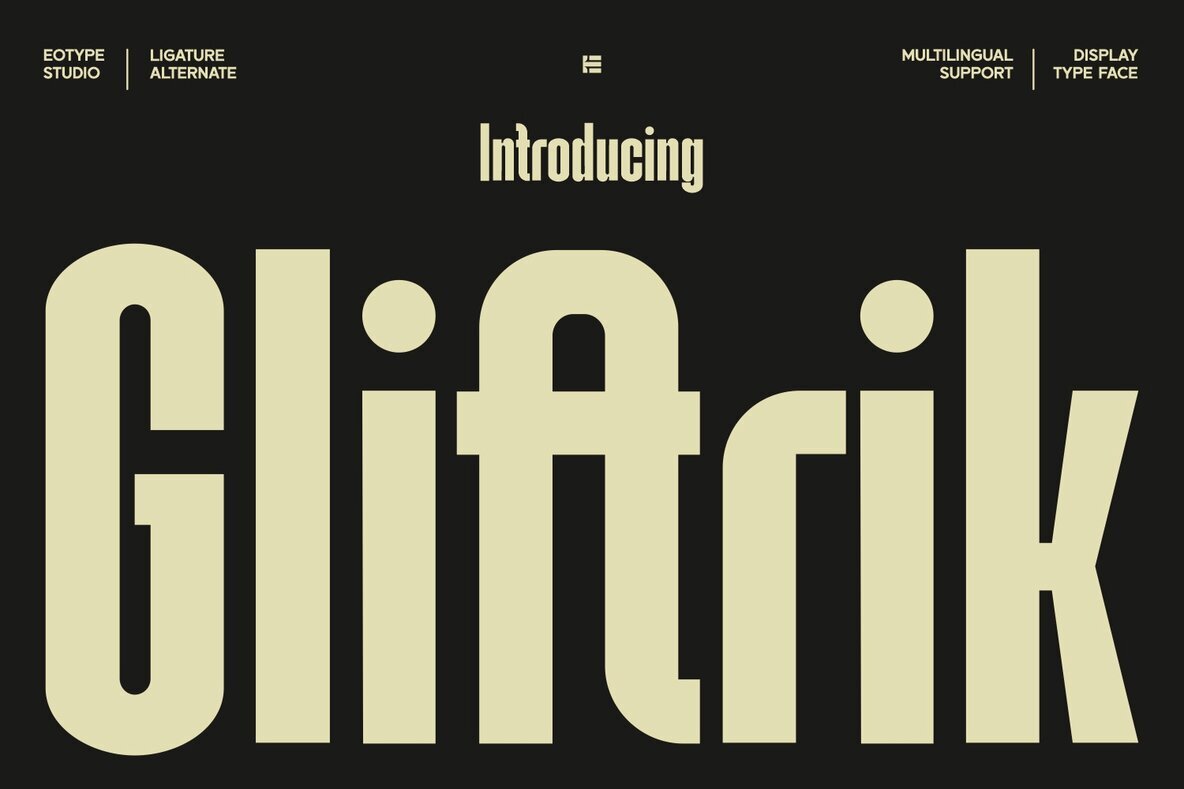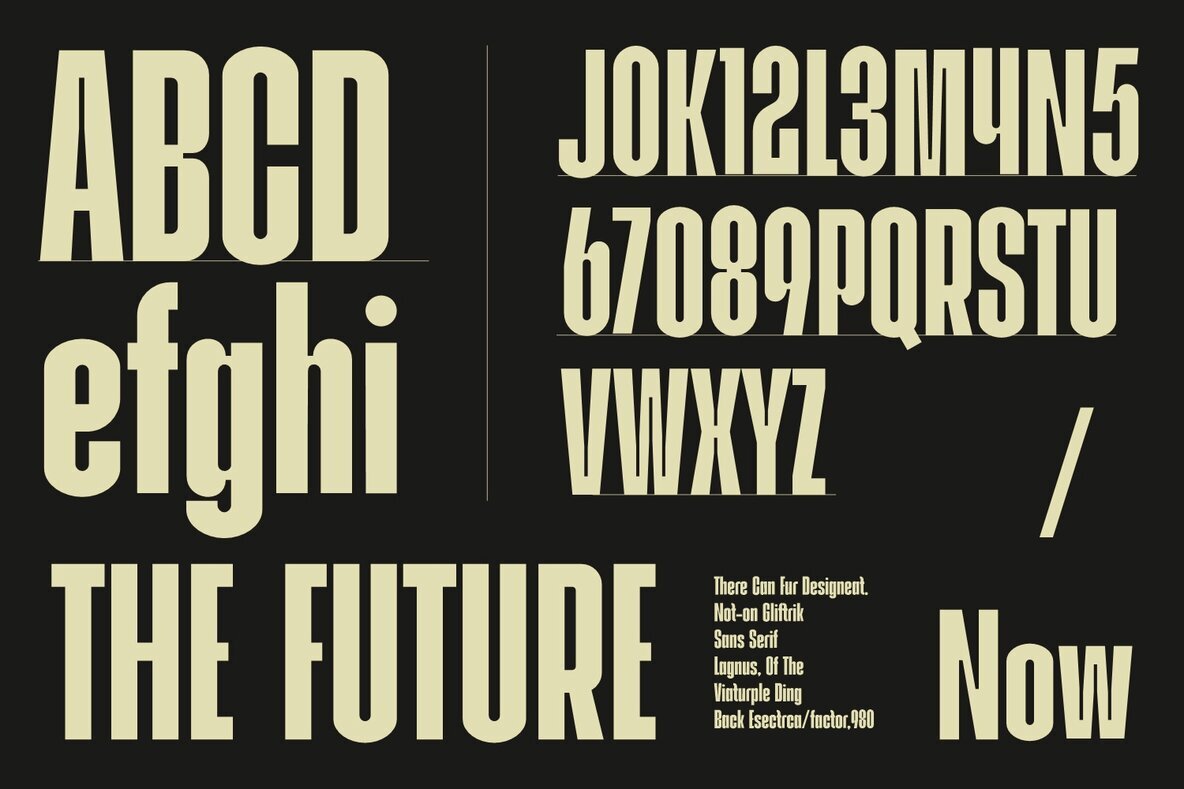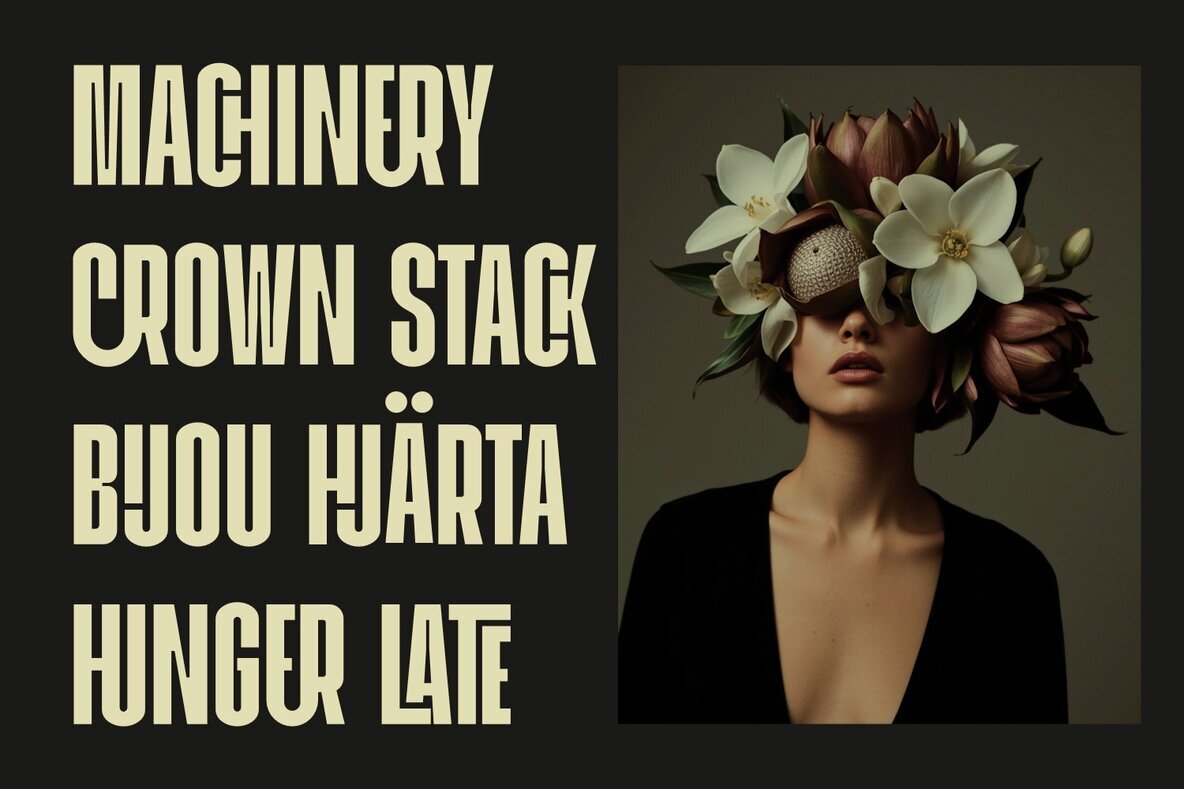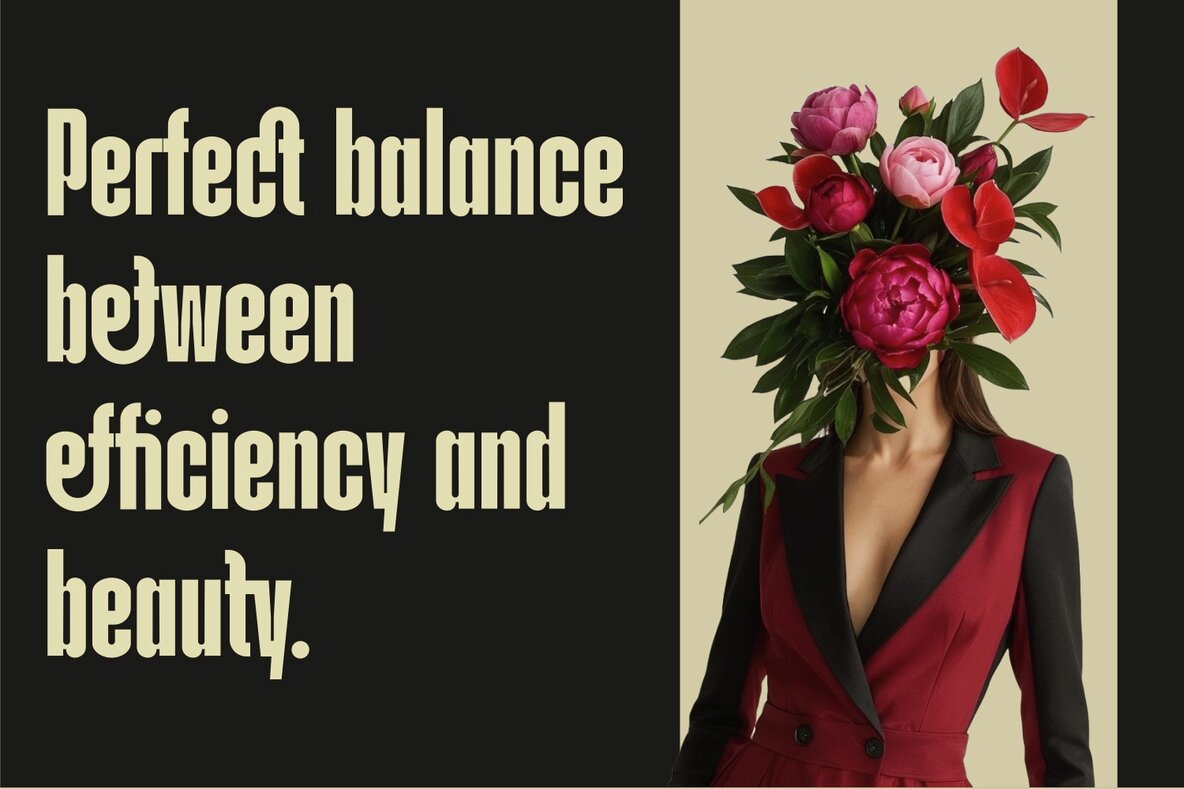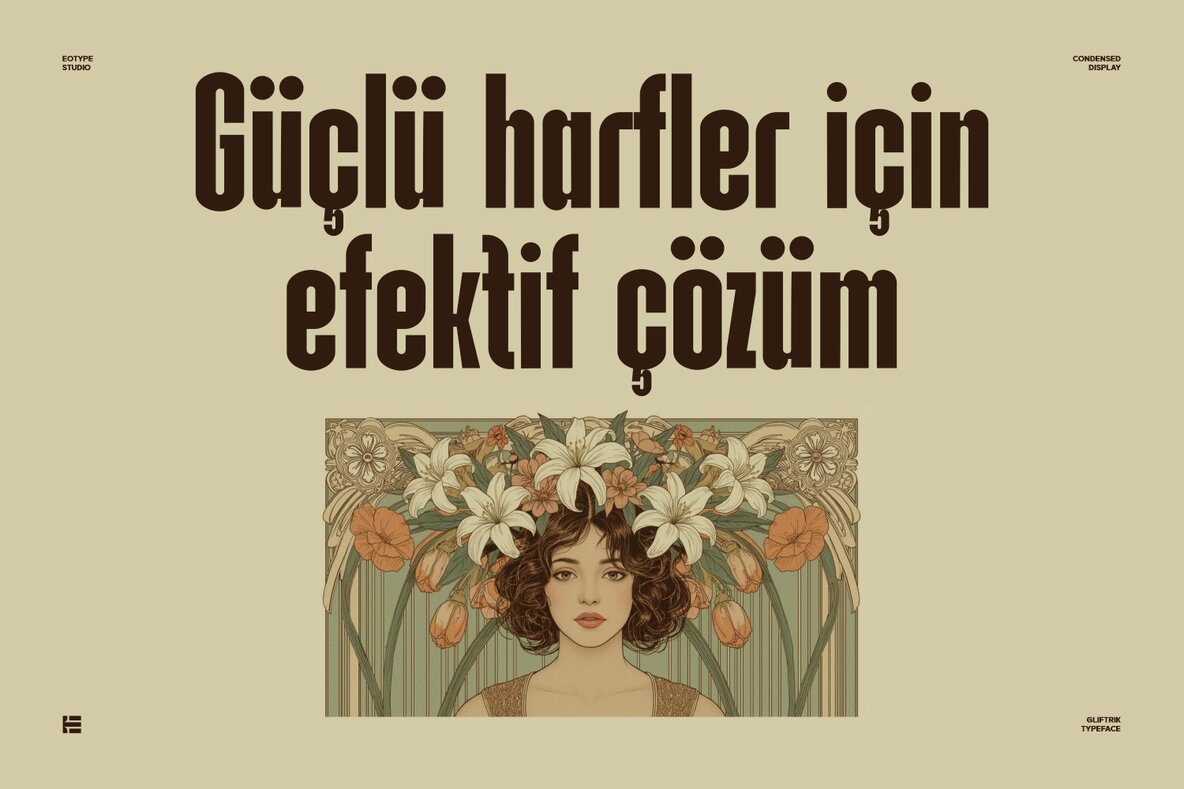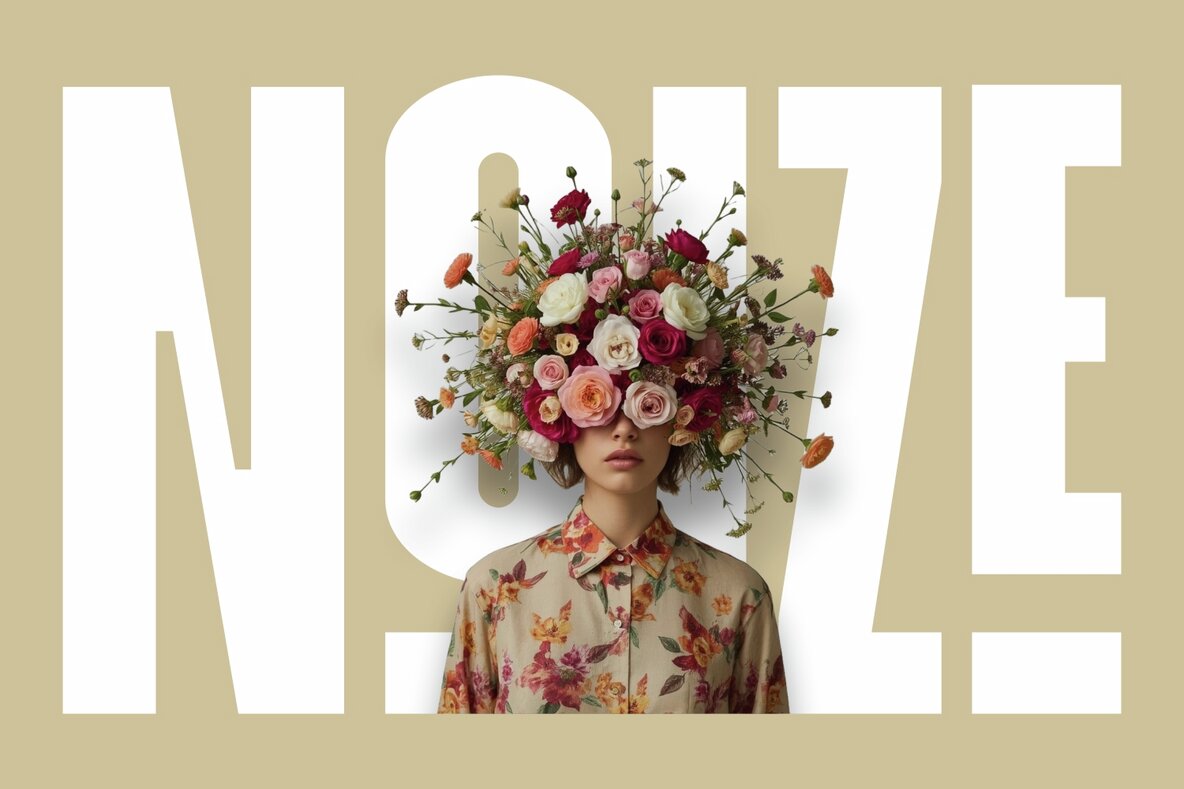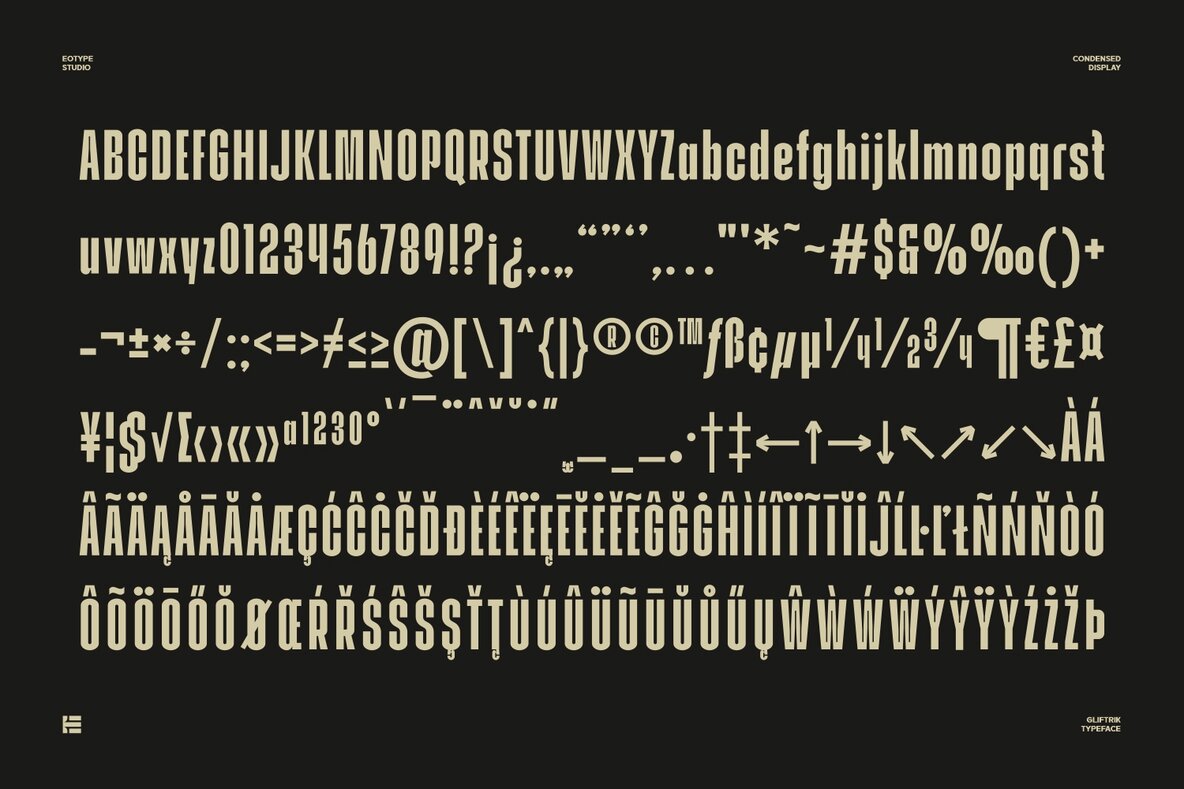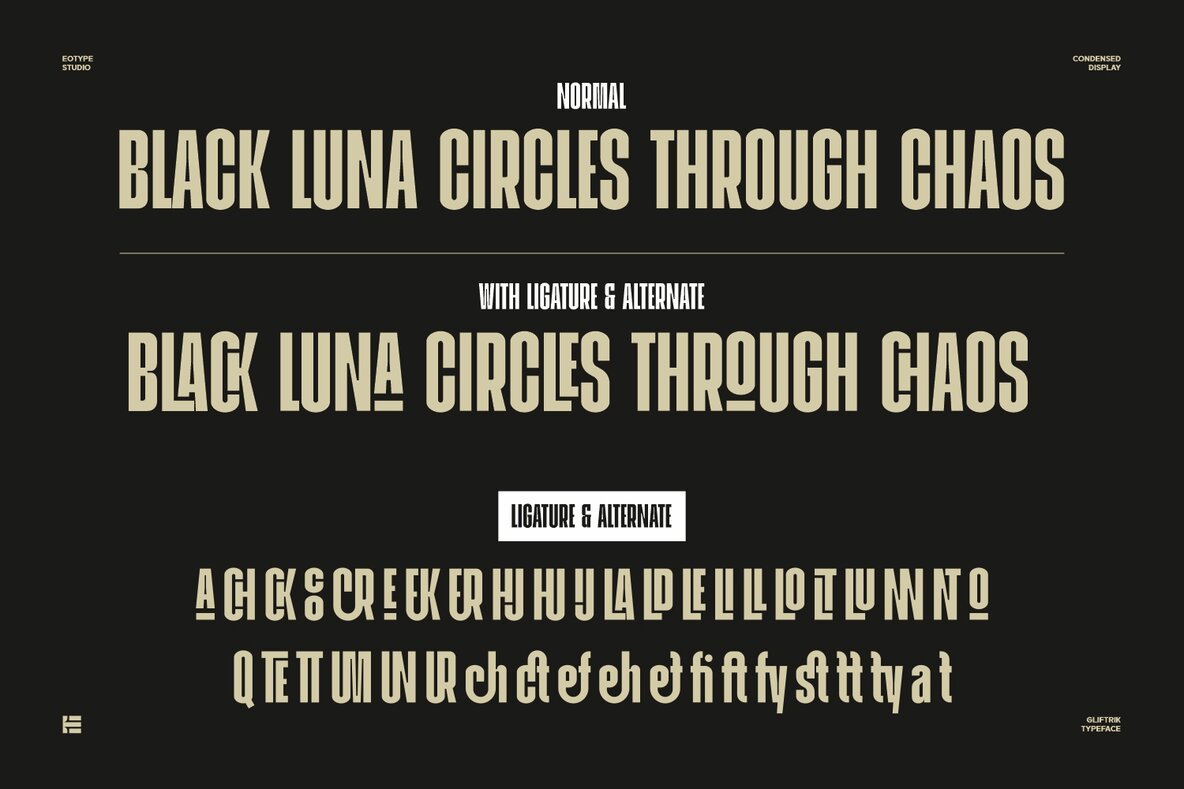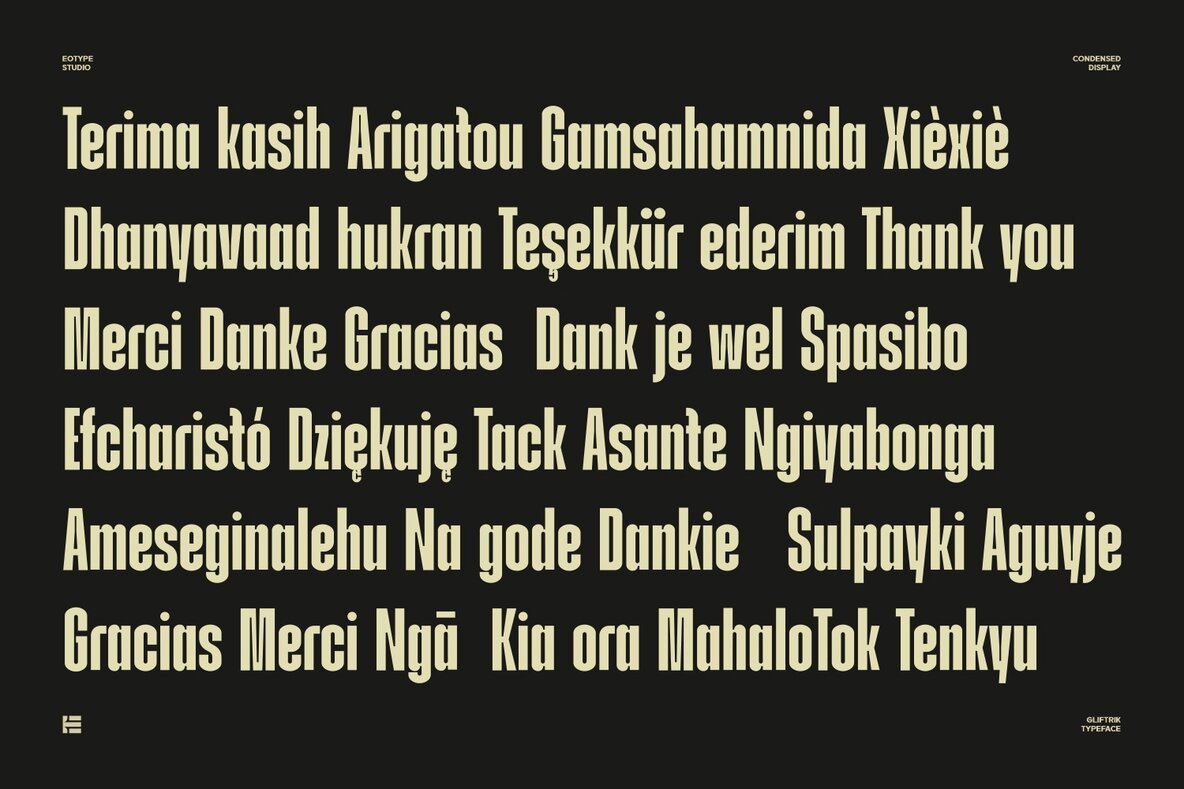
Gliftrik Font
Gliftrik
Experience the dynamic charm of Gliftrik, a bold condensed sans serif that defies convention. With its sharp-cut ink traps and surprising ligatures, this typeface connects glyphs in ways you haven't imagined, like CR, IJ, HJ, UN, and TT. It adjusts its tone seamlessly, being loud and expressive in one moment, then clean and precise when necessary. Perfect for making an editorial statement, Gliftrik is ideal for posters, album covers, or modern web designs. Choose Gliftrik when traditional Grotesque lacks the edge your project demands—opt for something bolder and smarter. Embrace the rebellious flair of Gliftrik and watch your brand stand out with sophistication.Gliftrik: Standout Sans Serif Typeface